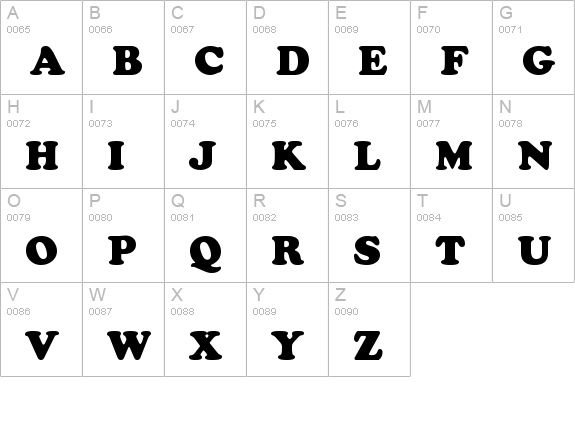
TR BobDylan Font Details
The TR BobDylan font is a stylish and artistic typeface that captures the essence of the legendary musician and poet, Bob Dylan. With its unique and handcrafted design, this font exudes a sense of creativity and originality. The TR BobDylan font is perfect for adding a touch of personality to your designs, whether you're working on posters, album covers, or any other creative project. The best part? The TR BobDylan font is completely free to download at FontsMarket.com. Now you can add a touch of Bob Dylan's iconic style to your projects without breaking the bank. Download the TR BobDylan font today and let your creativity soar with this one-of-a-kind typeface.